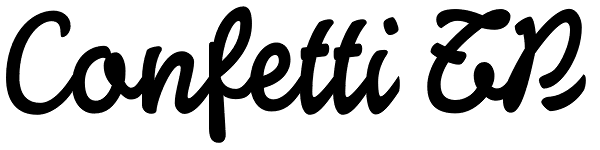
Confetti TP
The Confetti is a typeface created about 1930 by the defunct José Iranzo foundry in Barcelona, and imitates the forms and gestures of handwriting created with a round nib as “Speedball”Series B. The original typefaces were a pair, called “Escritura...